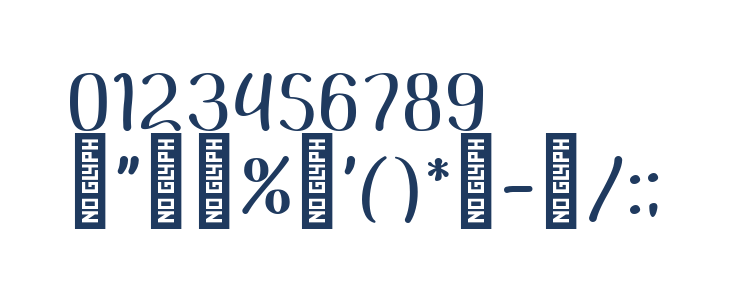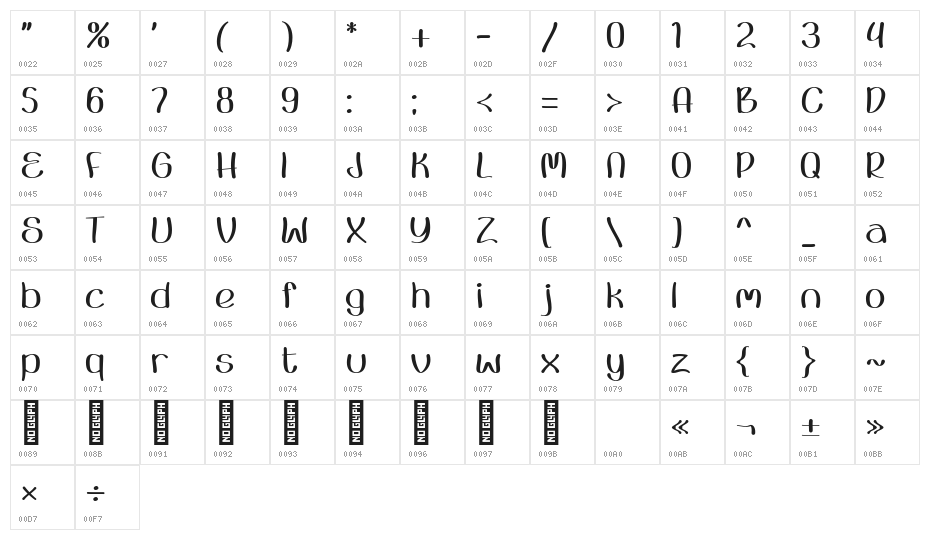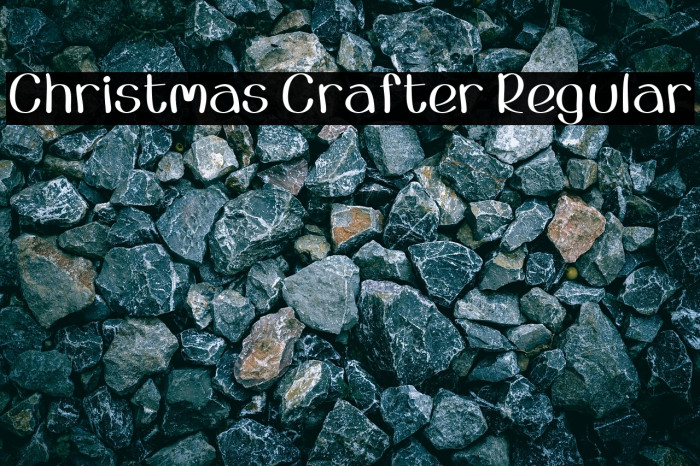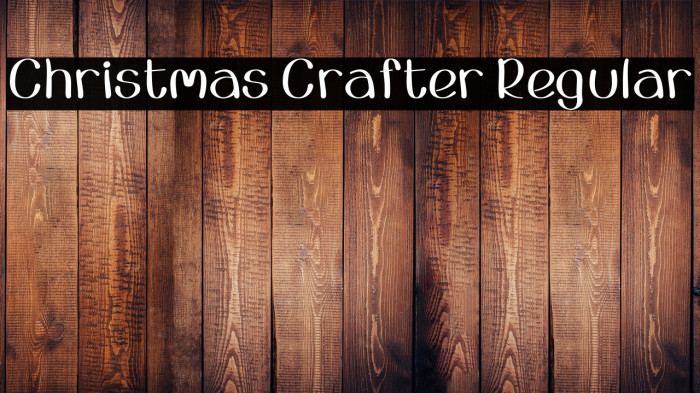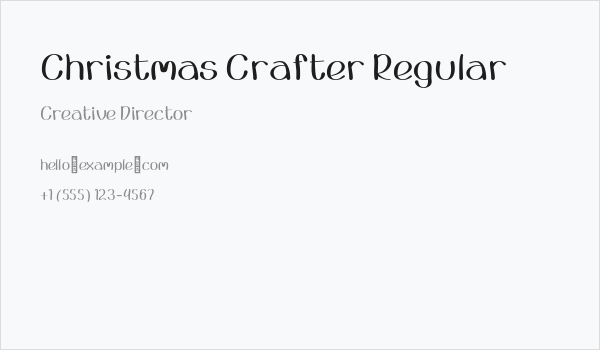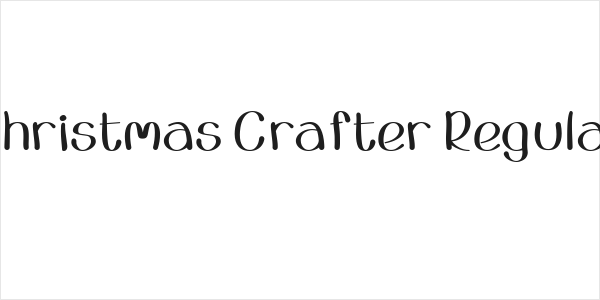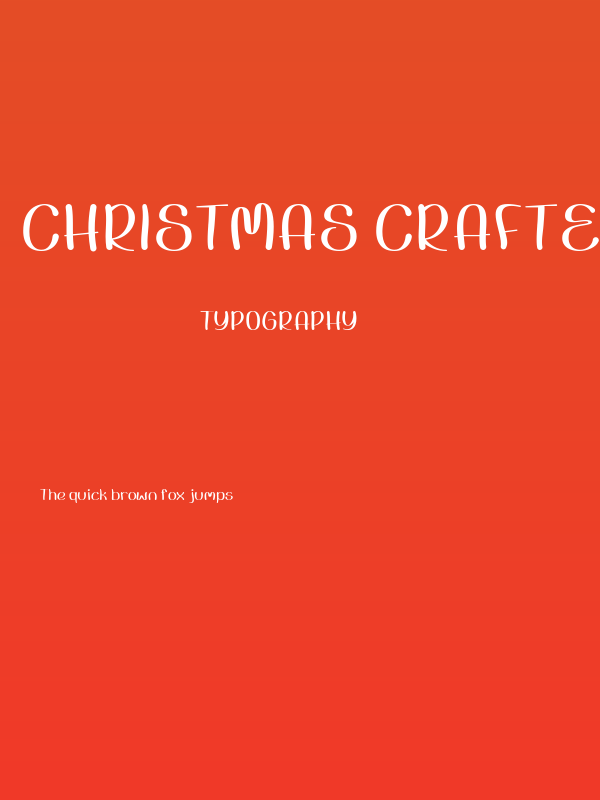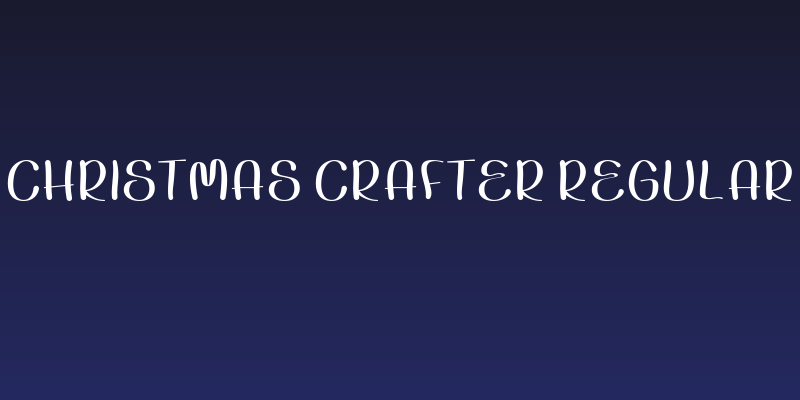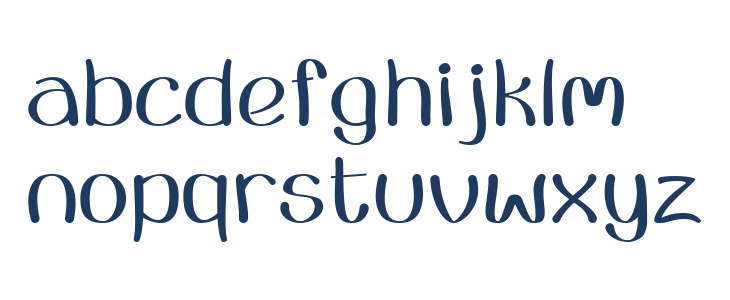
Christmas Crafter Regular Font
Christmas Crafter Regular Description
This playful and whimsical font features a handwritten style with smooth, flowing curves and a casual, friendly appearance. The characters are slightly rounded, giving them a soft and approachable feel. The uppercase letters maintain a consistent height, while the lowercase letters exhibit a charming irregularity that adds to the font's unique personality. The numerals and special characters are designed to complement the alphabet, maintaining the same playful aesthetic. This font is perfect for projects that require a touch of creativity and warmth, such as holiday cards, invitations, and festive branding materials.
Use CaseHeadlines, Logos, Invitations
Proposed ProjectsIdeal for holiday cards, invitations, festive branding, and creative projects.